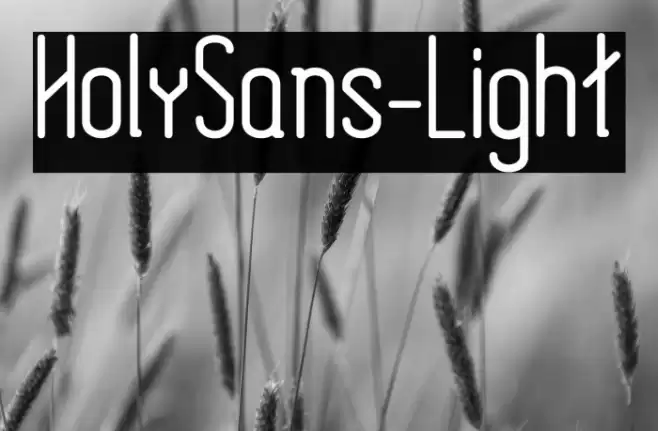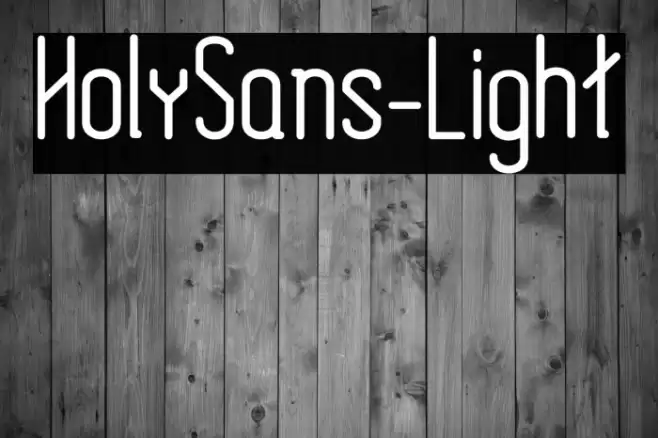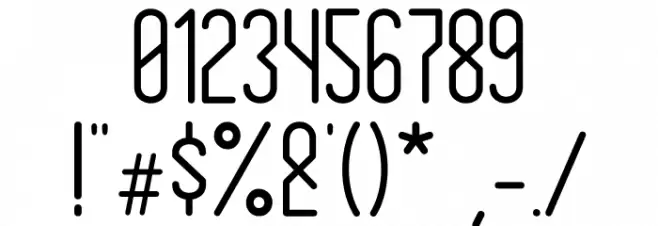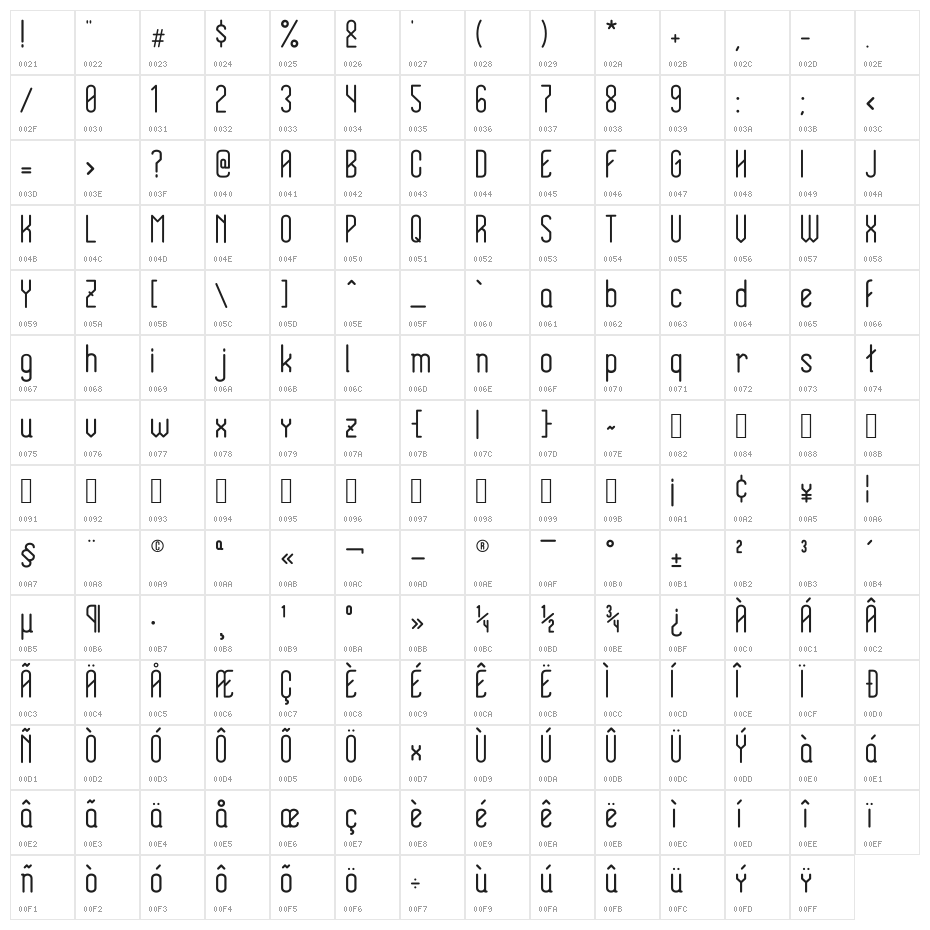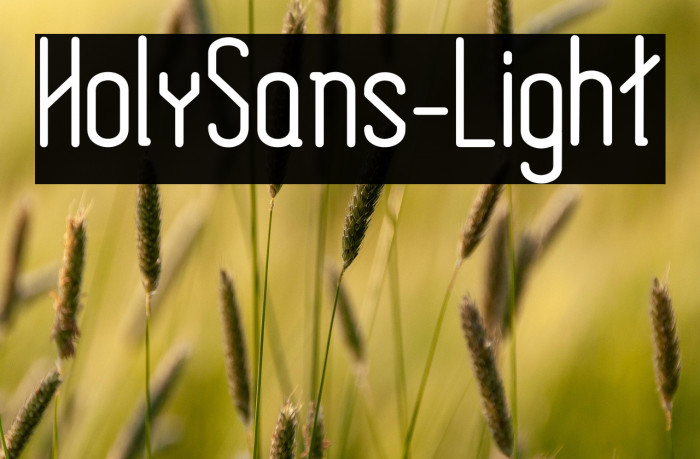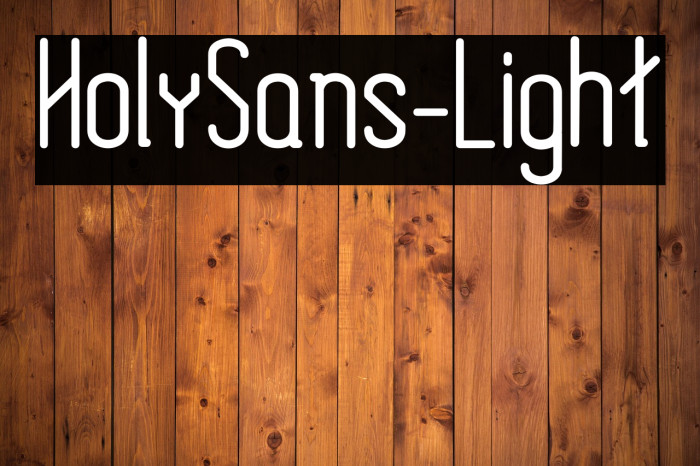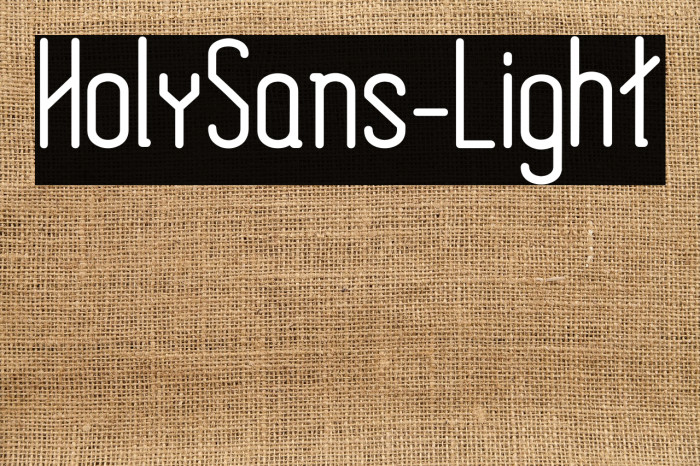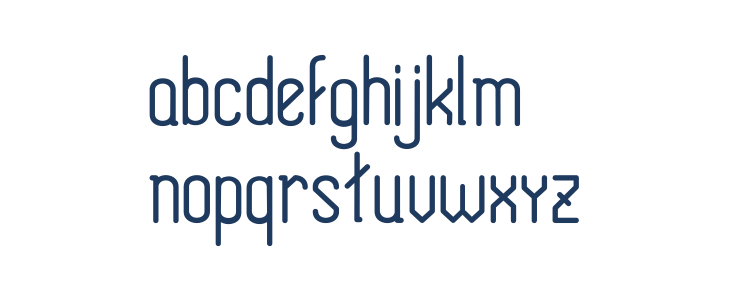
HolySans-Light Font
HolySans-Light Description
This font features a clean and modern sans-serif style with a light weight. The characters are elongated and have a rounded, tubular appearance, giving them a sleek and contemporary look. The uniform stroke width and minimal contrast contribute to its streamlined aesthetic. The uppercase and lowercase letters maintain a consistent height, enhancing readability. The numerals and special characters are designed with the same rounded edges, ensuring a cohesive visual identity across all elements. This font is ideal for projects that require a modern and minimalist touch.
A modern, light sans-serif font with rounded, tubular characters from Uncategorized fonts.
- Font: HolySans-Light
- Proposed Projects: Ideal for branding, web design, and modern editorial layouts.